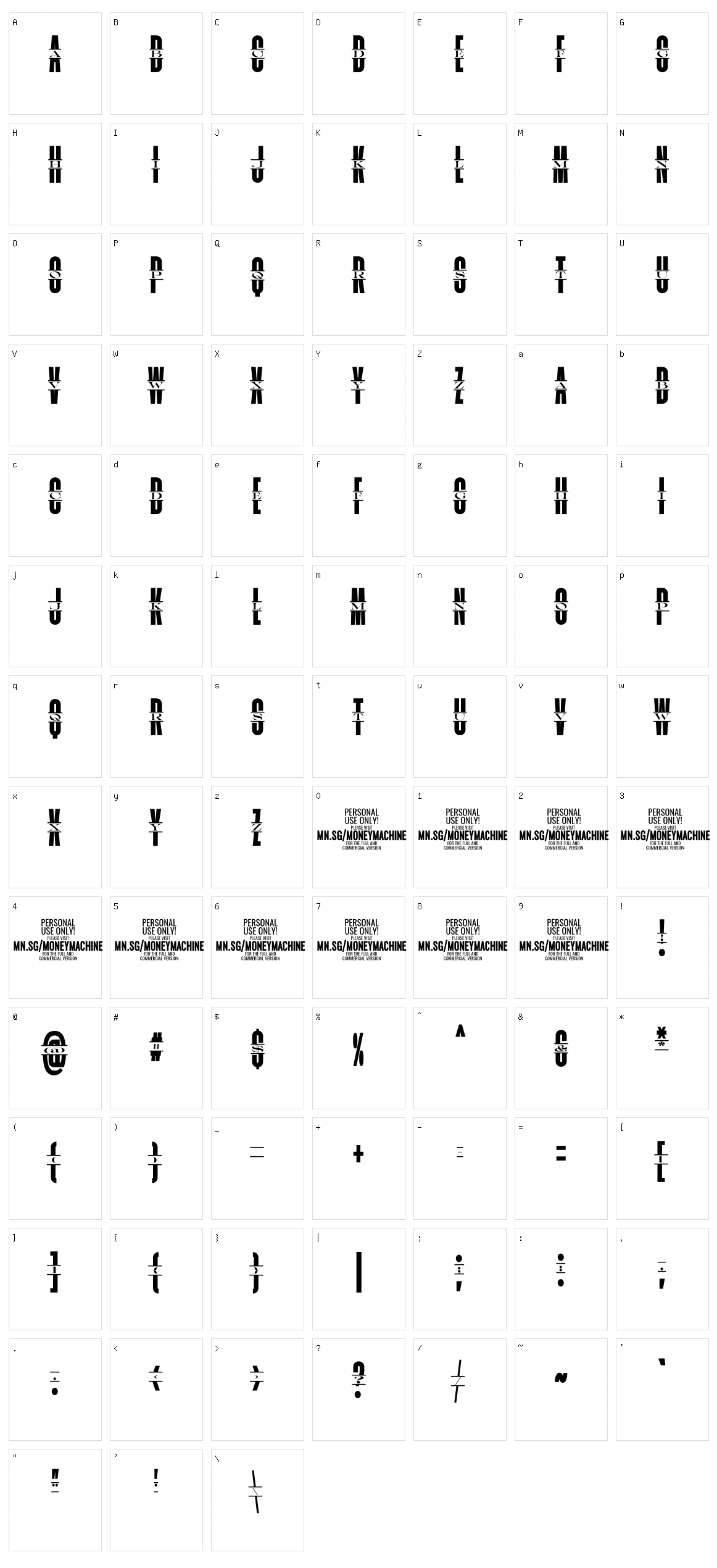
Moneymachine is a sans and serif combined display typeface.
Inspired by the art of money printing, the typography used for certificate production and classic letterforms, Moneymachine uses a traditional and perfected serif font and blends it together with a modern and clean sans-serif.
The result is an original and confident work, which fits perfectly as a logotype or headline in any context that requires that extra touch of coolness.
The Moneymachine family consists of six fonts:
The Regular that combines sans and serif. Inverted for a white-on-black version. The Serif and Sans for more basic writing. White and Black for a lettering with a banner.
The font is built with advanced OpenType functionality and has a guaranteed top-notch quality, containing stylistic and contextual alternates, ligatures and more features; all to give you full control and customizability.